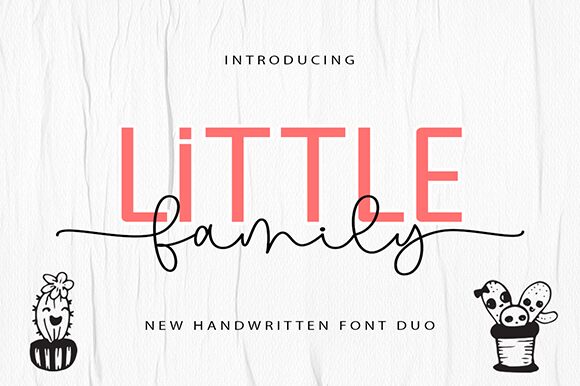
Family Monoline Duo font by Wahyu Studio is a light handwritten font with a modern script style. Its casual elegance provides a relaxed feel, adding a personal touch to all designs. This font features thin, stylish strokes that connect the letters beautifully.
This free handwritten font is perfect for greeting cards, social media posts, branding projects, logotypes, wedding invitations/cards, cosmetics branding and packaging design. Use it in stationery designs for your notebooks and business cards or apply to easily make any texts different.